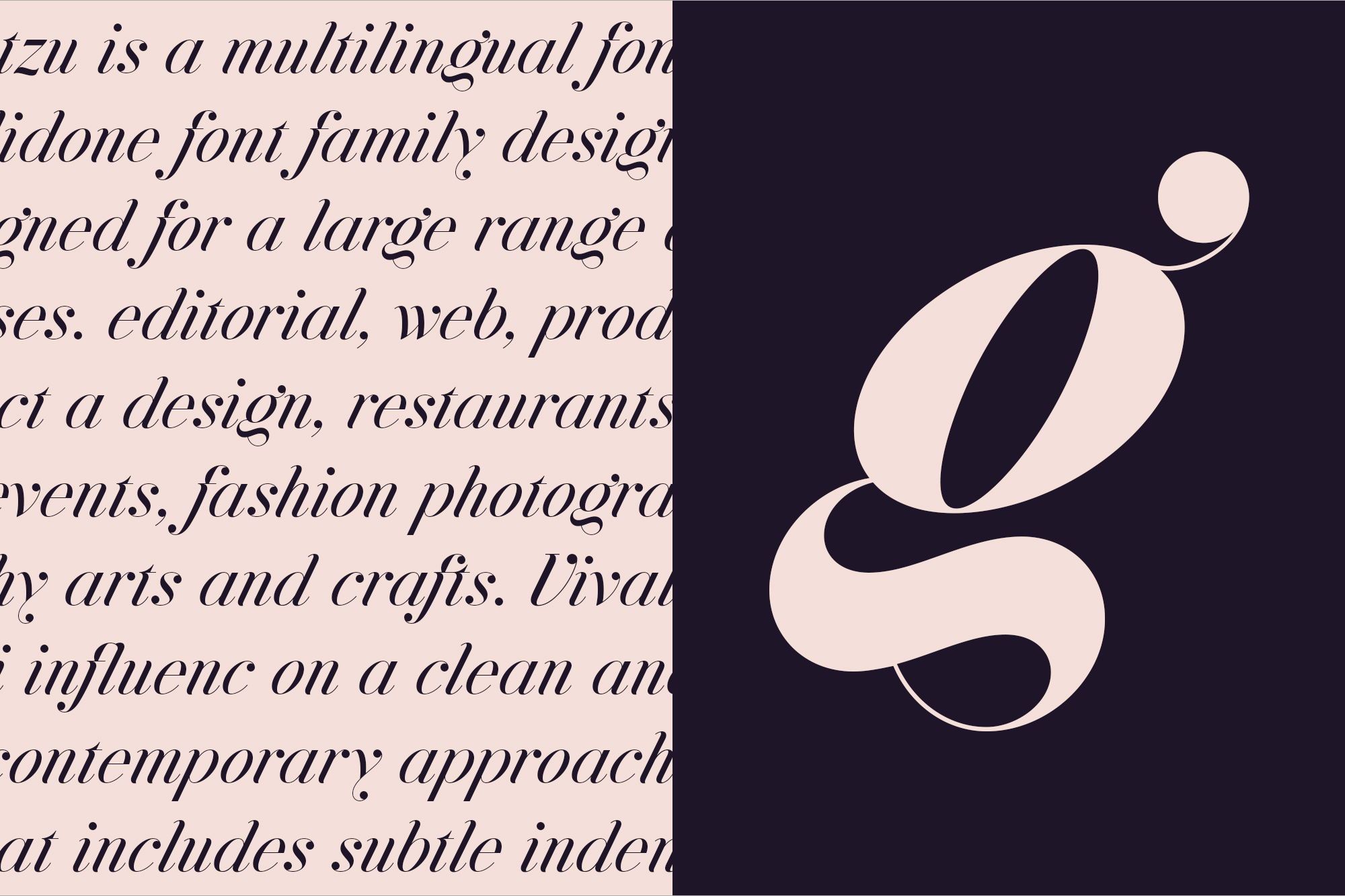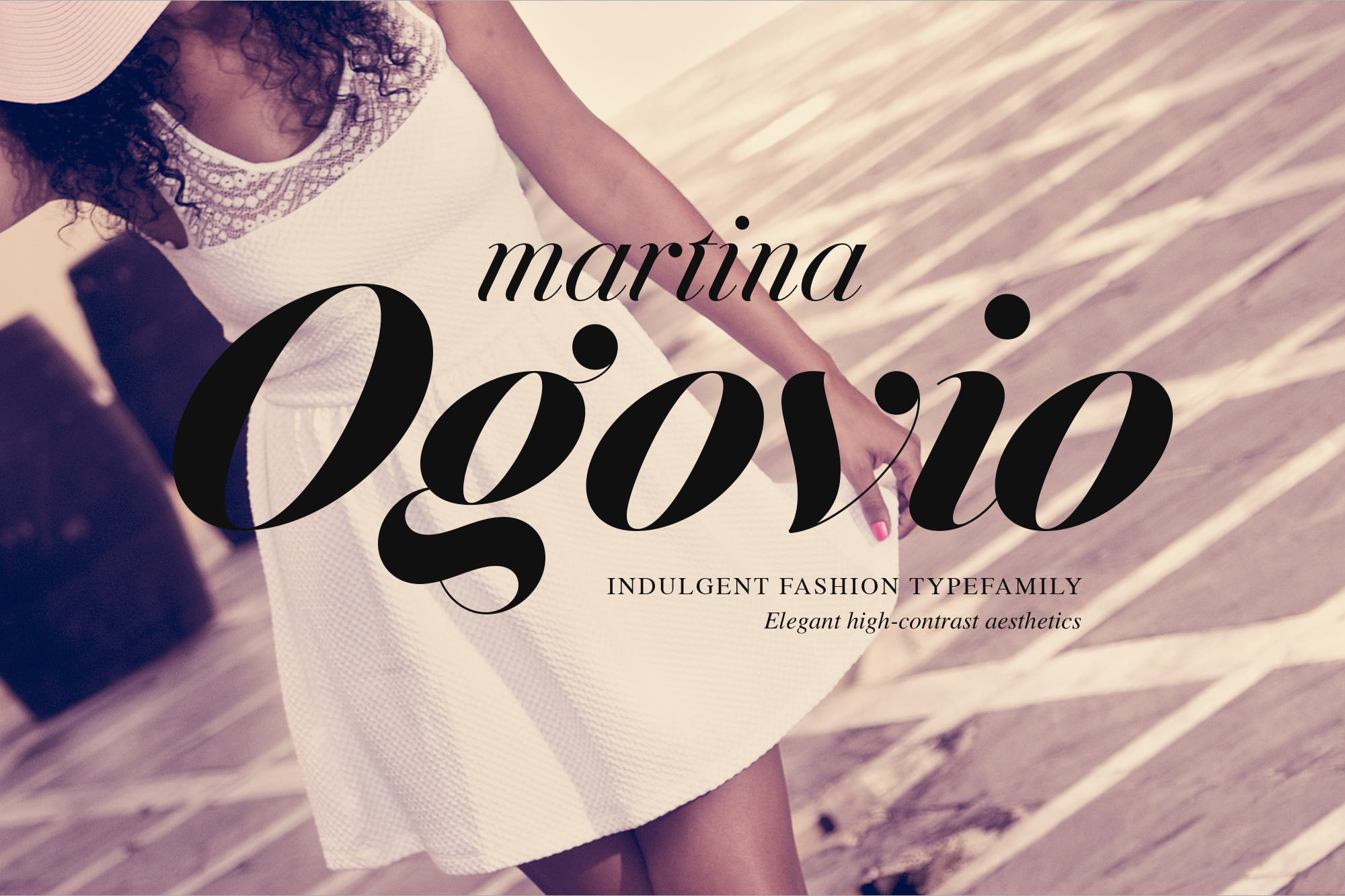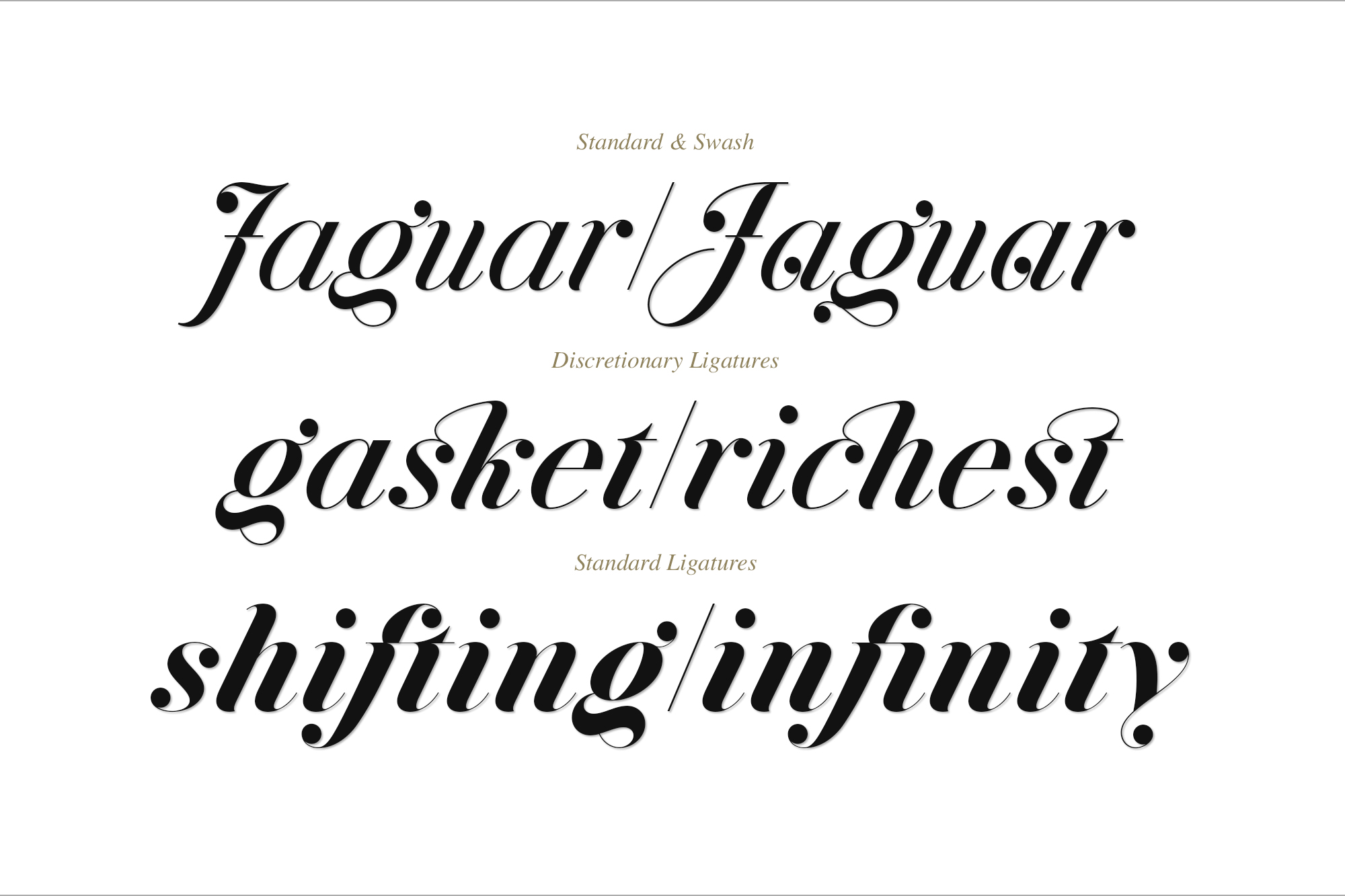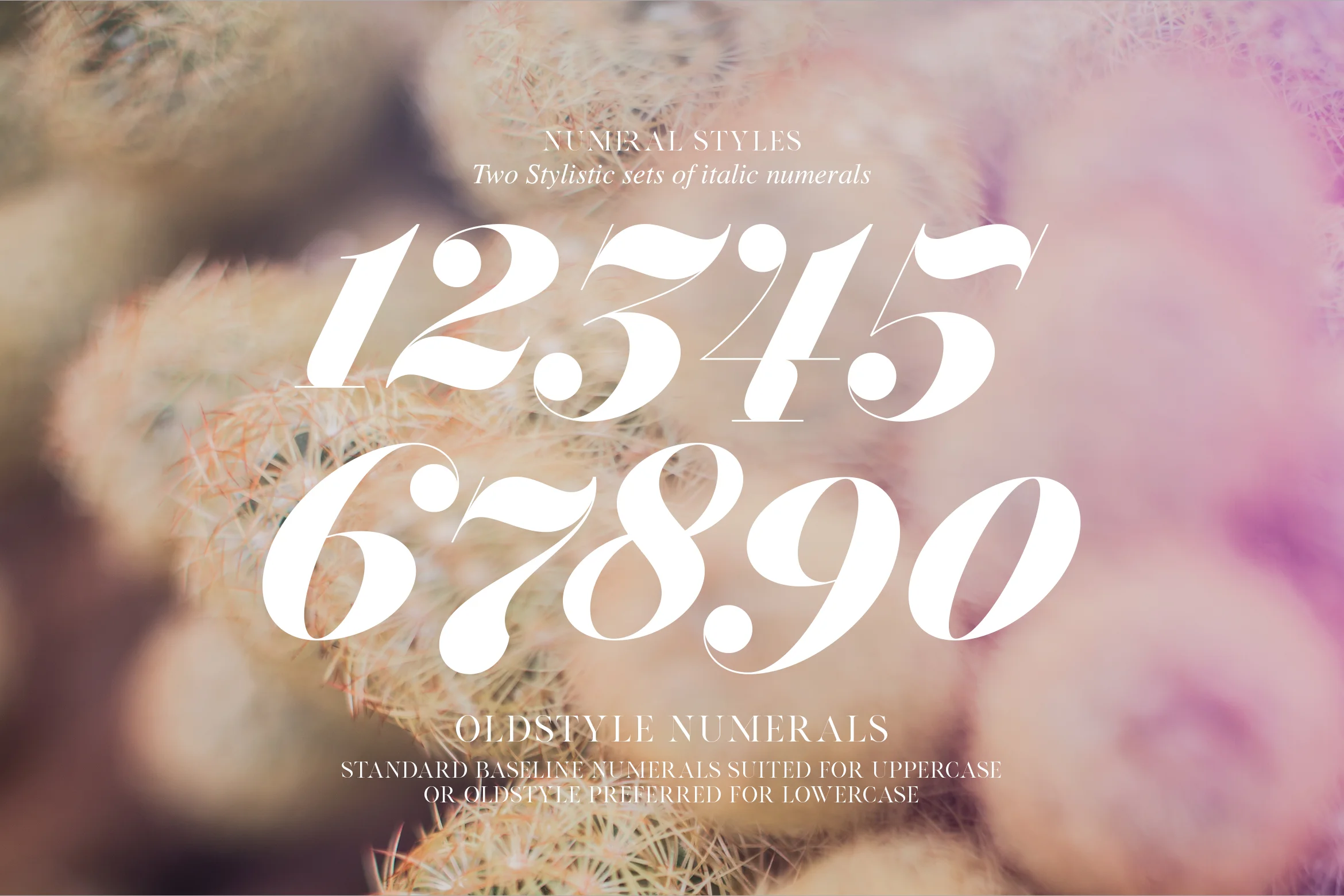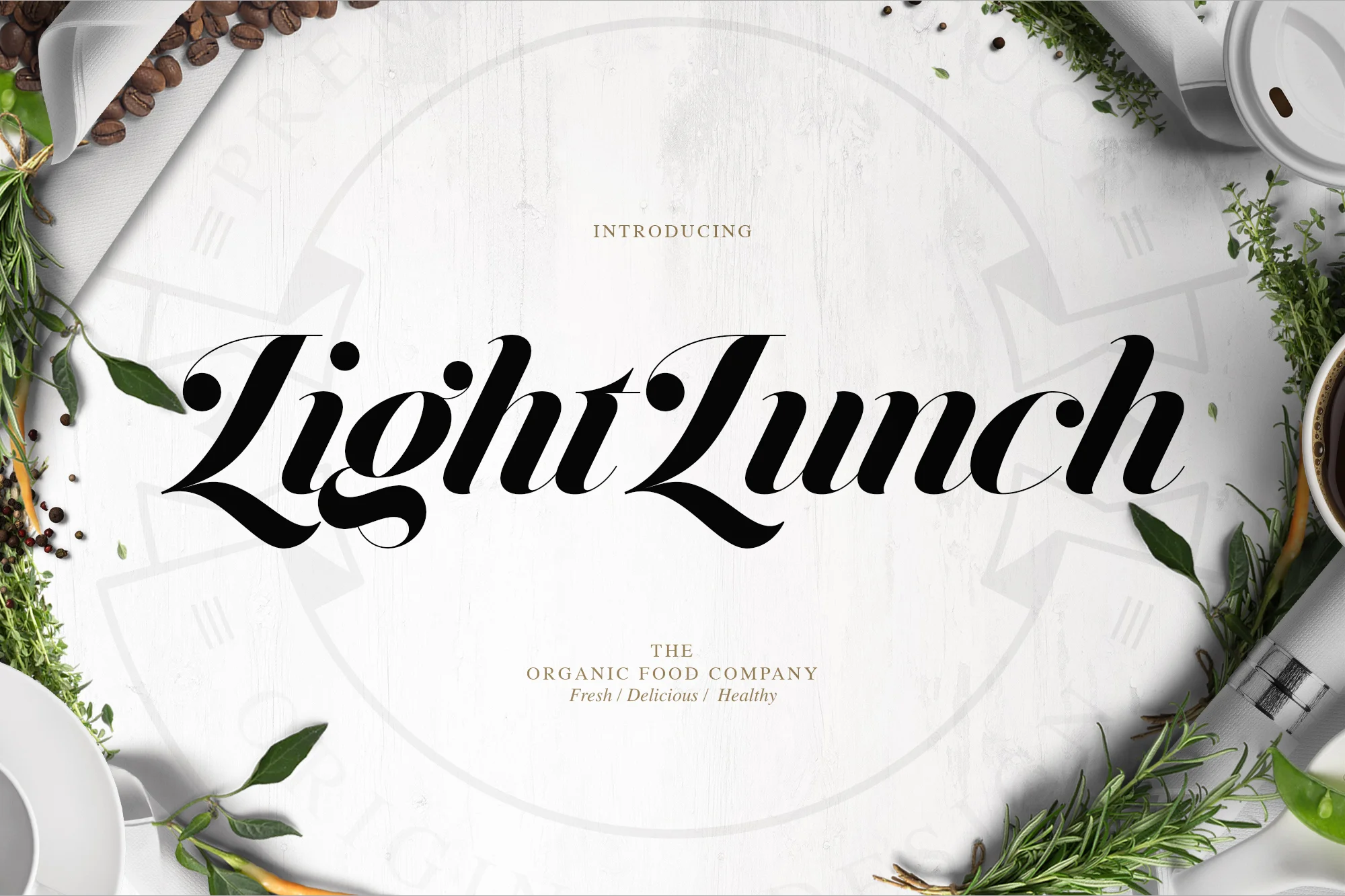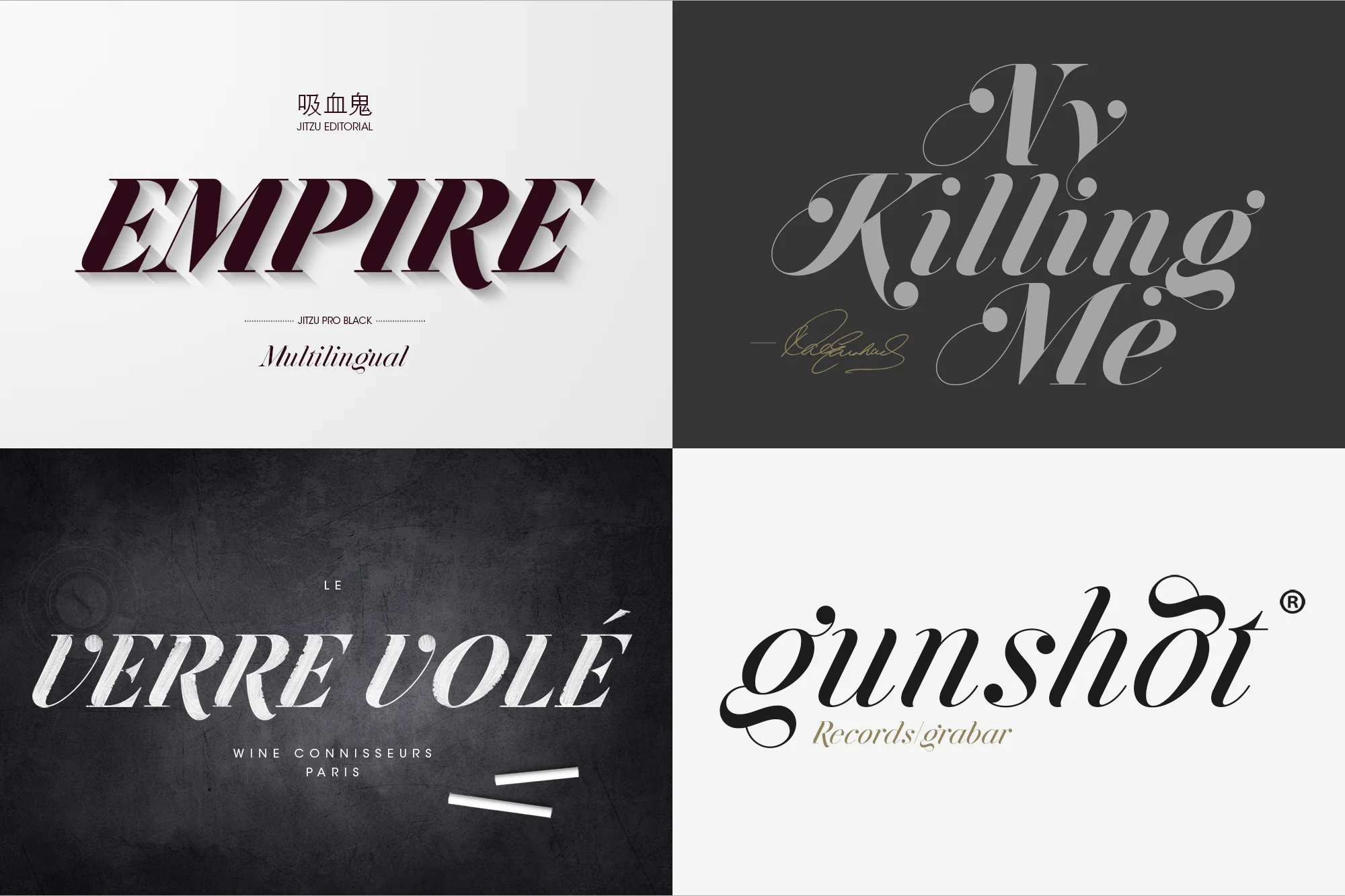
JITZU FONT FAMILY
Jitzu is a multilingual didone font family designed for a large range of uses - editorial, web, product design, restaurants, events, fashion and arts & crafts. Focusing on a clean and contemporary approach that includes subtle indentations, parameters and balance remain intact. Jitzu Basic is a timeless and elegant italic typeface, whilst Jitzu Swash blends calligraphy with legibility. Both styles include a Display weight, to achieve maximum aesthetics when being used for headlines or larger text formats. supporting 80 languages. The file includes all 10 weights for both Jitzu Regular & Jitzu Swash.